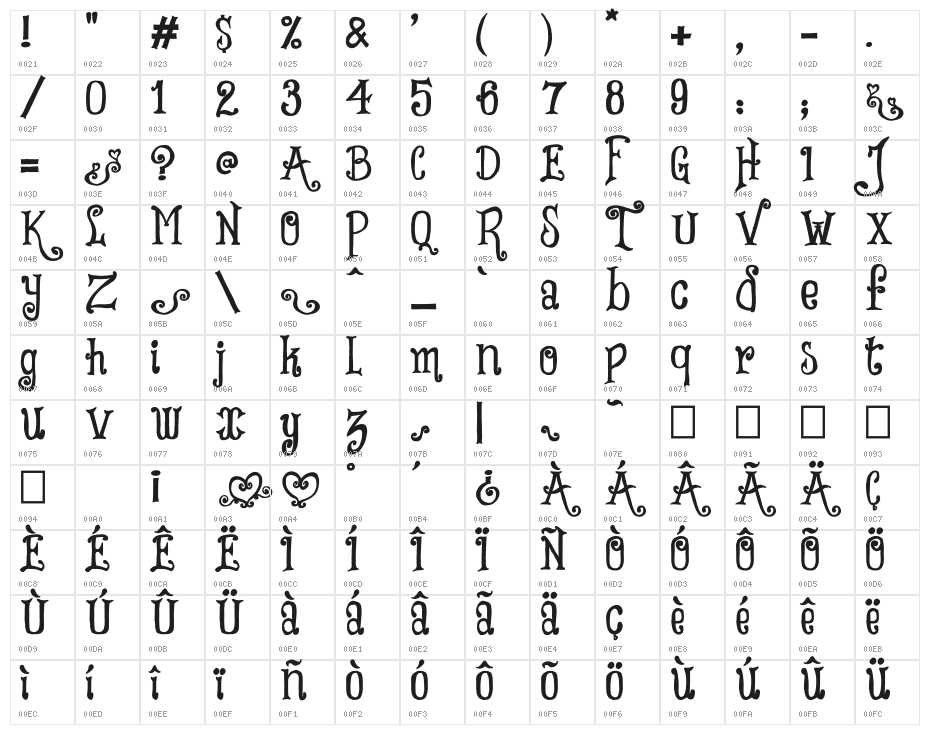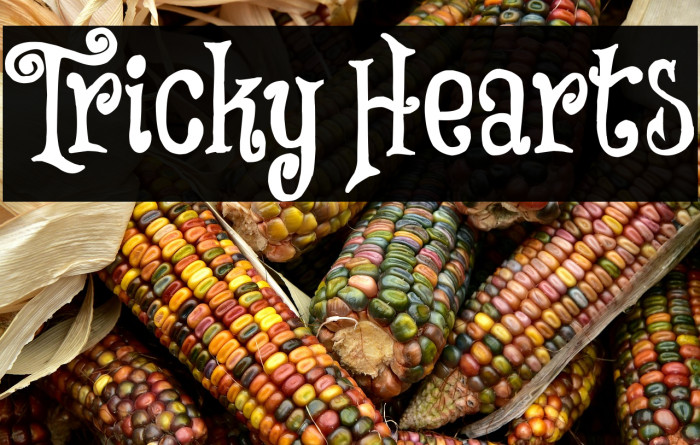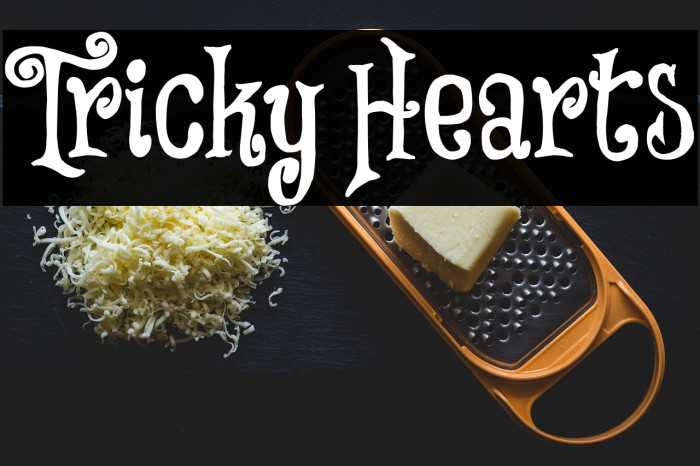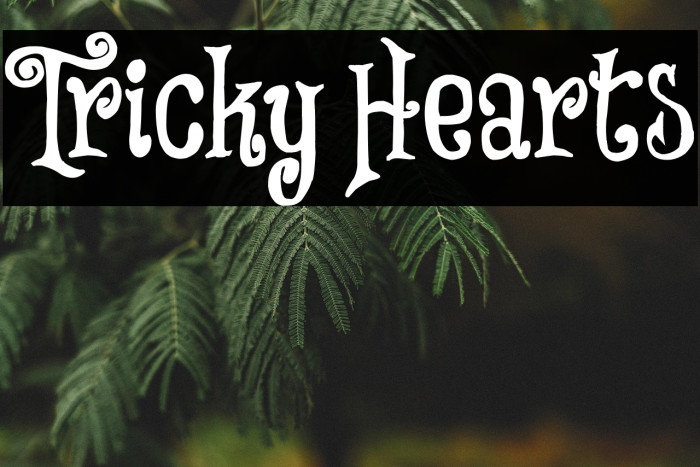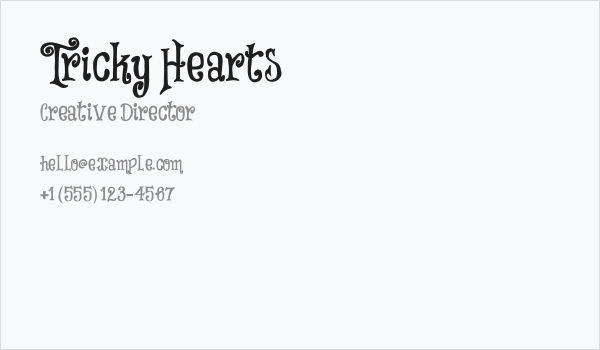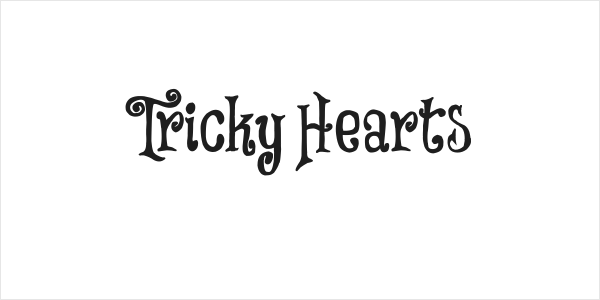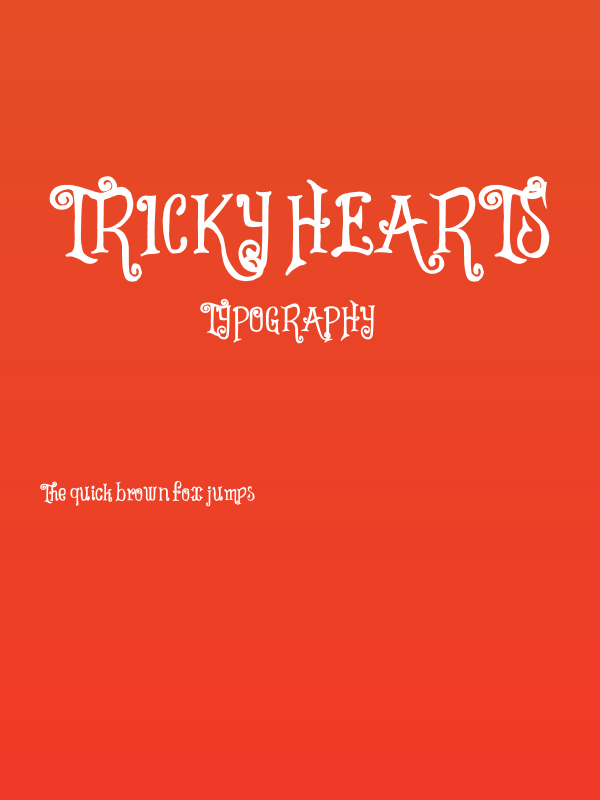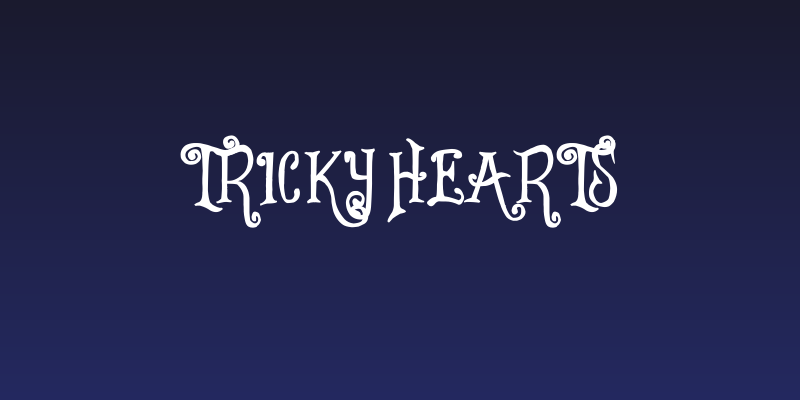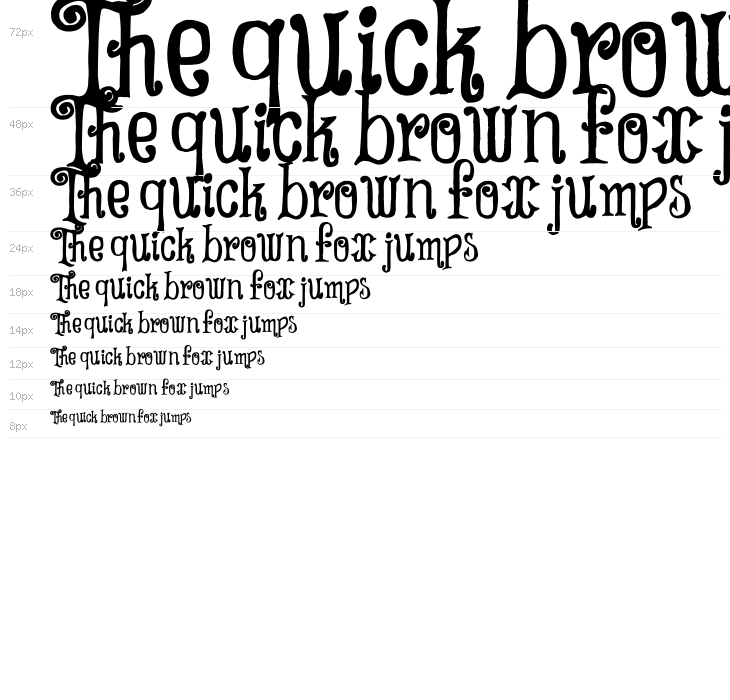
Tricky Hearts Font
Tricky Hearts Description
This font features a whimsical and playful design, characterized by its decorative and curly elements. Each letter is uniquely crafted with flourishes that give it a hand-drawn appearance. The uppercase letters are bold and prominent, while the lowercase letters maintain a consistent style with slightly less emphasis. Numbers and special characters follow the same decorative theme, making the font cohesive and visually engaging. The overall style is reminiscent of a fairy tale or fantasy setting, ideal for projects that require a touch of magic and creativity.
| Proposed Projects | Ideal for children's books, fantasy-themed invitations, playful branding, and creative posters. |